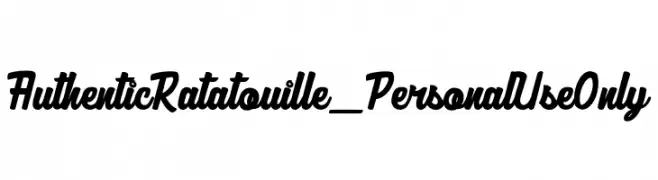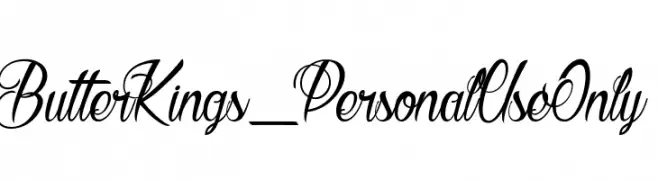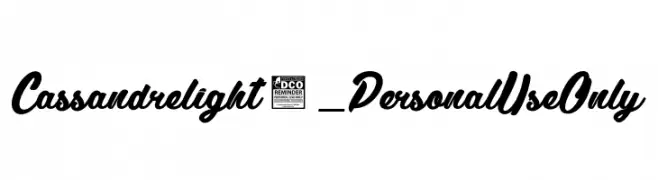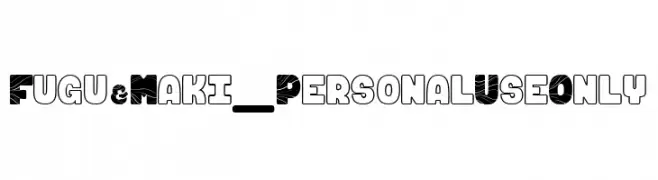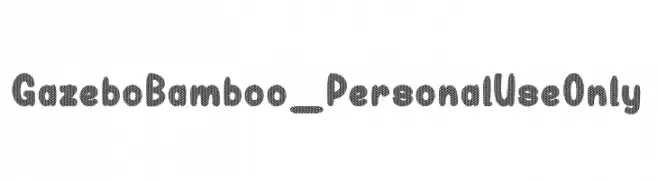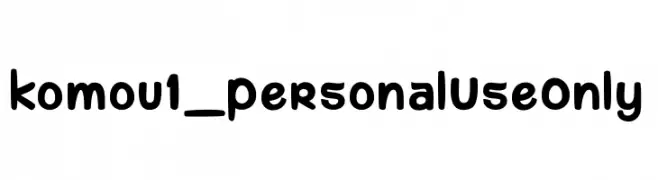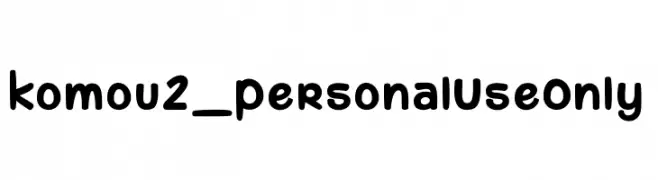
A bold, cursive font with elegant, interconnected letters and ornate uppercase designs.
A bold, textured font with a woven, bamboo-like appearance.
A bold, patterned font with a modern and playful style.
A flowing, cursive script font with elegant, connected strokes.
An elegant and flowing script font with intricate loops and flourishes.
A playful, rounded font with a bold and friendly appearance.
A bold, rounded, and playful font with a friendly and whimsical style.
A bold, cursive font with smooth, flowing lines and a dynamic, elegant style.
A playful, bold font with rounded, bubble-like characters.
A bold, playful script font with smooth, flowing curves.